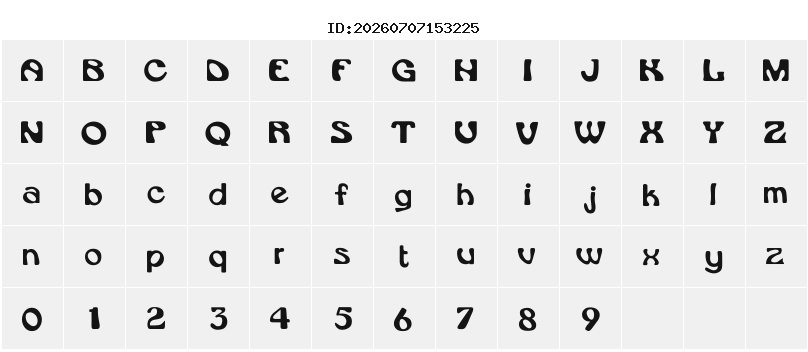
Daytona Preview
• Font Name: Daytona
• Full Font Name: Daytona
• PostScript Name: Daytona
About Daytona.ttf
Daytona.ttf is a modern, elegant sans-serif font designed for ultimate readability and visual harmony. Perfect for branding, headlines, web design, and print materials.